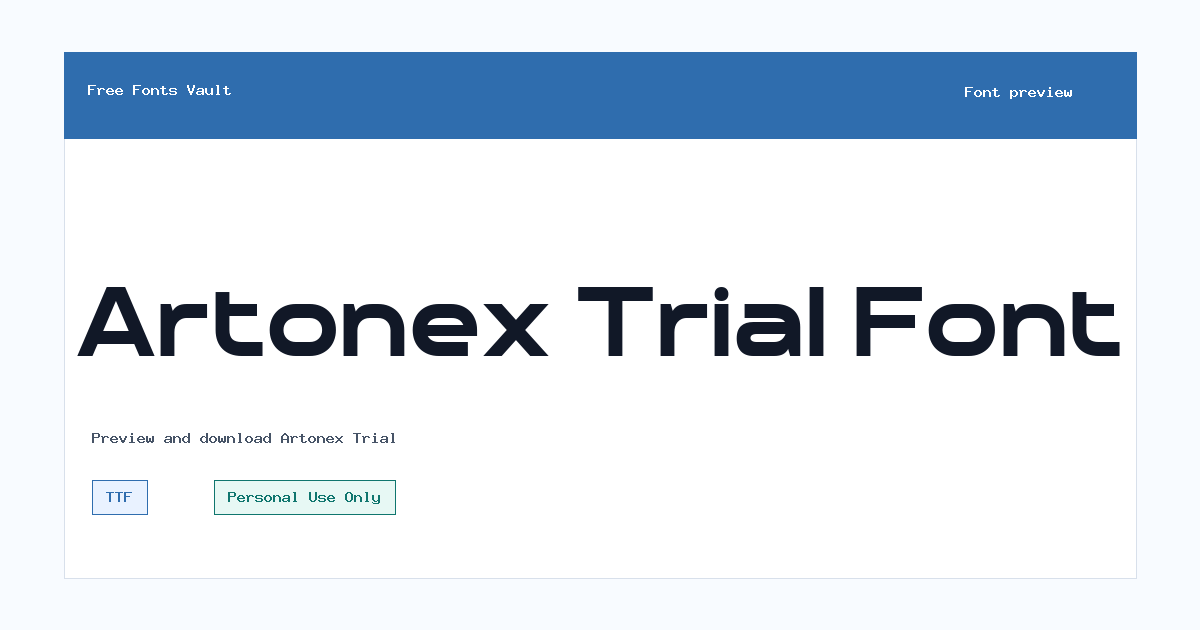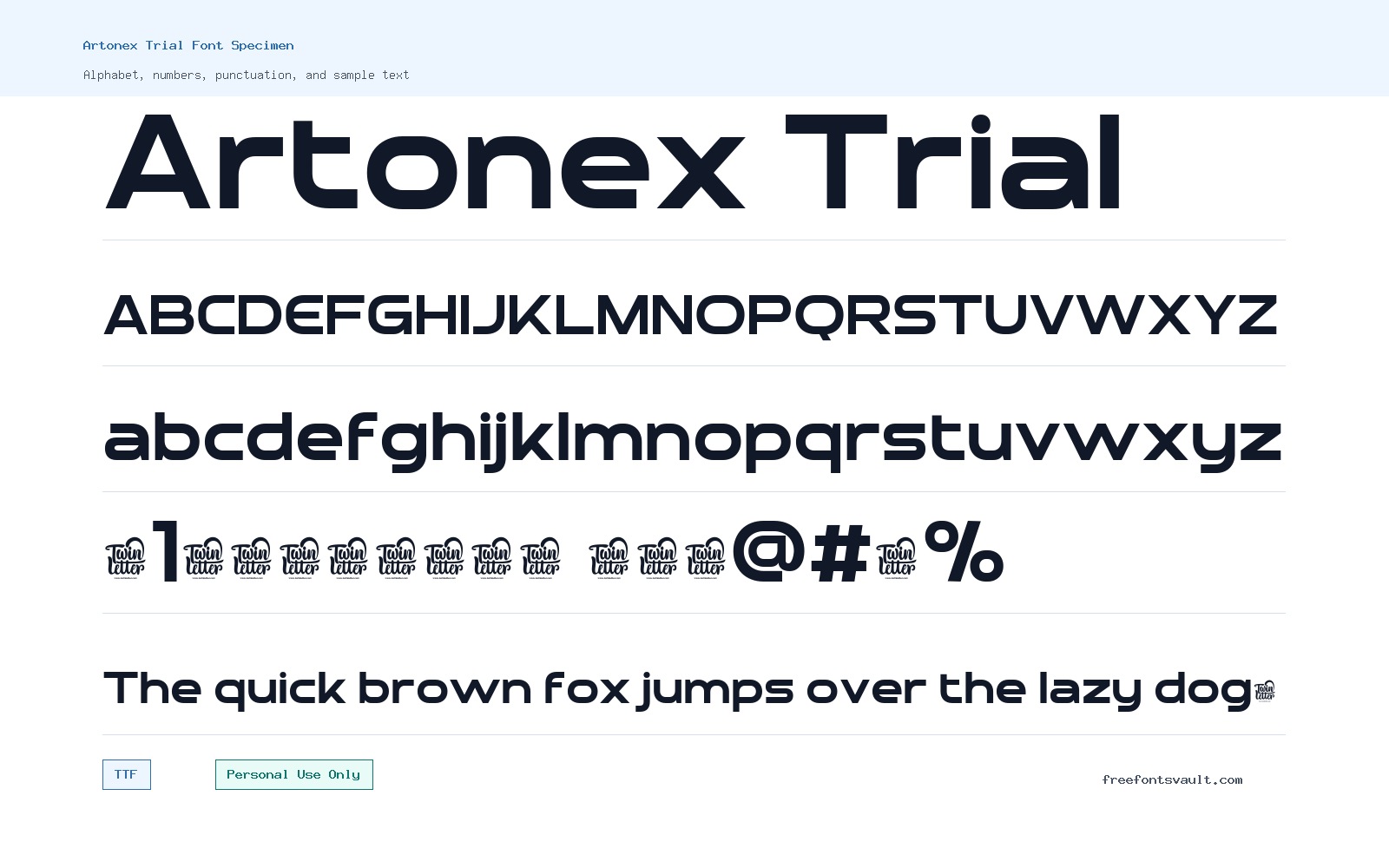
Artonex Trial
Artonex Trial font.
Artonex Trial is a regular-weight sans serif font for personal design testing, previews, and draft layouts. It is a good choice when you want a clean letter style that can be tested quickly in both OTF and TTF formats before deciding how it fits your project.
About Artonex Trial
Artonex Trial works best as a straightforward sans serif for short, visible text. Use it for logo drafts, poster headings, social graphics, packaging mockups, website hero text, and presentation titles where the font needs to feel clean without adding too much decoration. Because only a regular 400 style is listed, it is most useful when you do not need a full family with bold, italic, or multiple weights. For longer reading, test it carefully at body sizes before using it across paragraphs, menus, or dense UI text.
- Regular 400 sans serif style for clean title and display testing
- Logo concepts, poster titles, social media graphics, and brand mockups
Try Artonex Trial first in the preview tool with your own words, especially names, headlines, numbers, and punctuation. Check spacing in all-caps titles, short lowercase phrases, and mixed text. Since only a regular weight is listed, pair it with a contrasting serif or a neutral sans serif that has more weights if your layout needs hierarchy. Use Artonex Trial for the main display line, then choose a simpler body font for descriptions, captions, and longer reading.
What kind of font is Artonex Trial?
Artonex Trial is listed as a sans serif font in a regular 400 style. It is best tested for clean headings, branding drafts, and display layouts.
What should I check before using it in a design?
Preview your exact text, check letter spacing, test numbers and punctuation, and make sure the regular weight gives enough contrast in your layout.